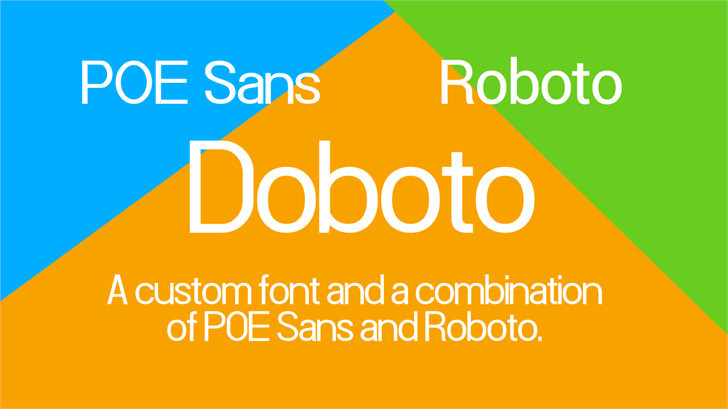
Doboto Font
Doboto Font — By 538Fonts
Based off of Roboto by Christian Robertson, I have created a font called “Doboto!” It is a combination of POE Sans and Roboto. POE Sans is by me, and Roboto is by Christian. I created this font myself.